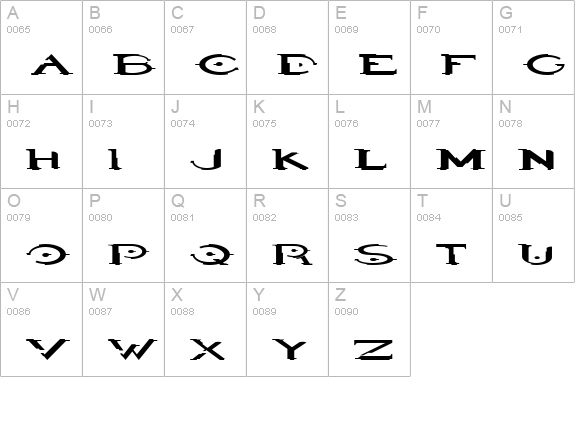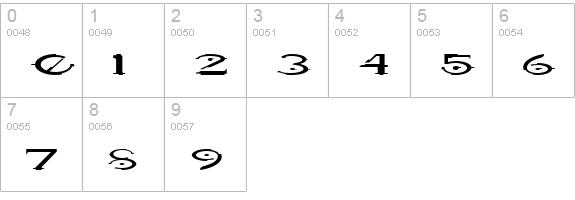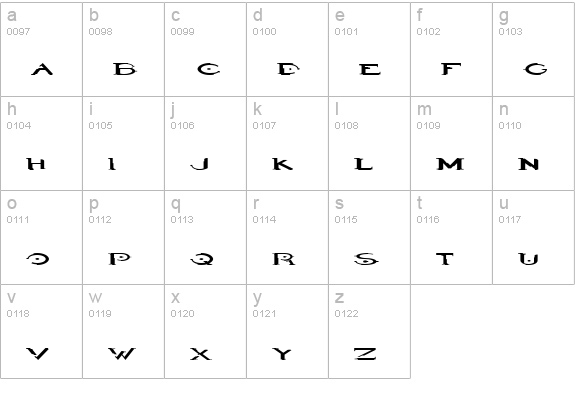
Halo Font Details
Introducing the captivating and iconic Halo font, a true masterpiece in the realm of typography. With its bold and futuristic design, this font exudes a sense of power and elegance, making it the perfect choice for any project that demands attention and sophistication. The Halo font stands out among the rest with its unique and eye-catching letterforms, inspired by the renowned video game franchise that shares its name. Each letter is meticulously crafted to embody the essence of the Halo universe, capturing the essence of its epic battles, heroic characters, and gripping storyline. This exceptional font is not only visually stunning, but it also offers unparalleled versatility. Whether you're designing a striking poster, creating engaging social media graphics, or crafting professional presentations, the Halo font will elevate your work to new heights. The best part? The Halo font is available for free download exclusively at FontsMarket.com. We believe that creativity should never be limited by cost, which is why we are thrilled to offer this incredible font to designers, gamers, and enthusiasts alike. Now, you can add a touch of Halo's magic to your projects without breaking the bank. Join the ranks of countless designers who have already discovered the power of the Halo font. Embrace the sleek lines, the commanding presence, and the unmistakable aura of this font, and watch your creations come to life. Download the Halo font for free today at FontsMarket.com and unlock a world of endless possibilities.